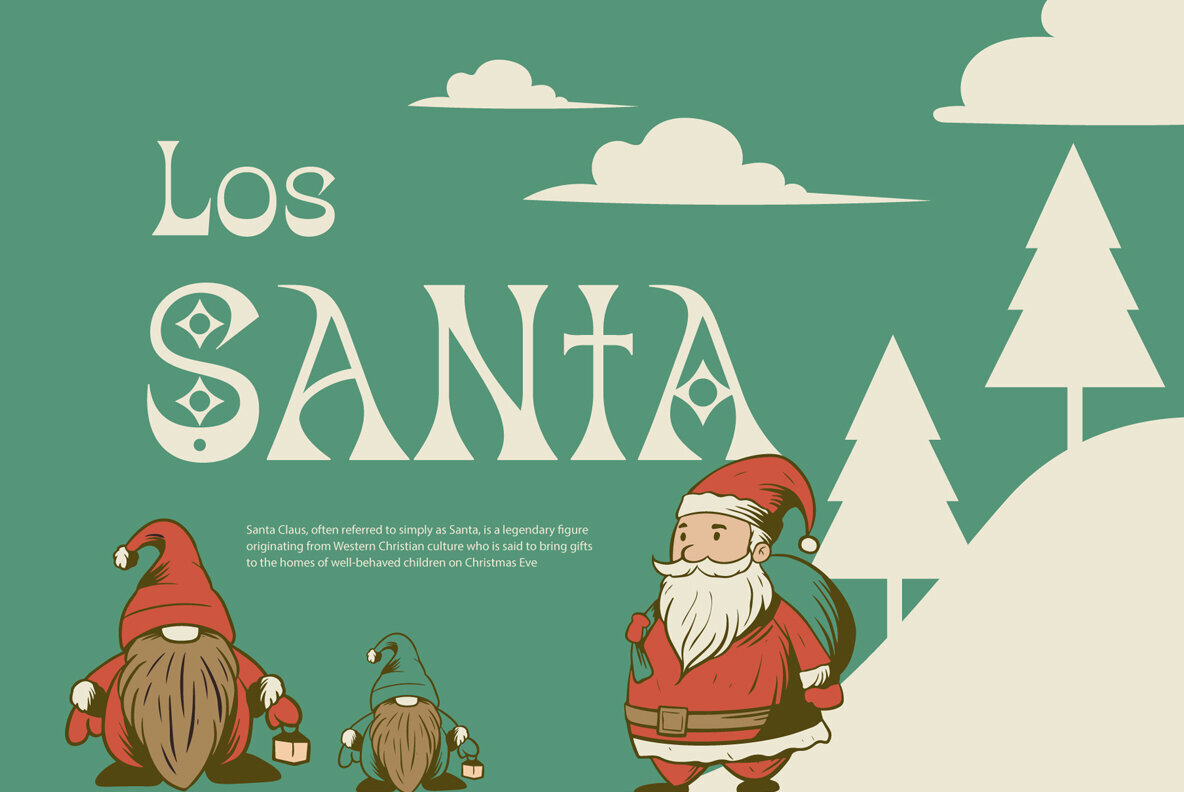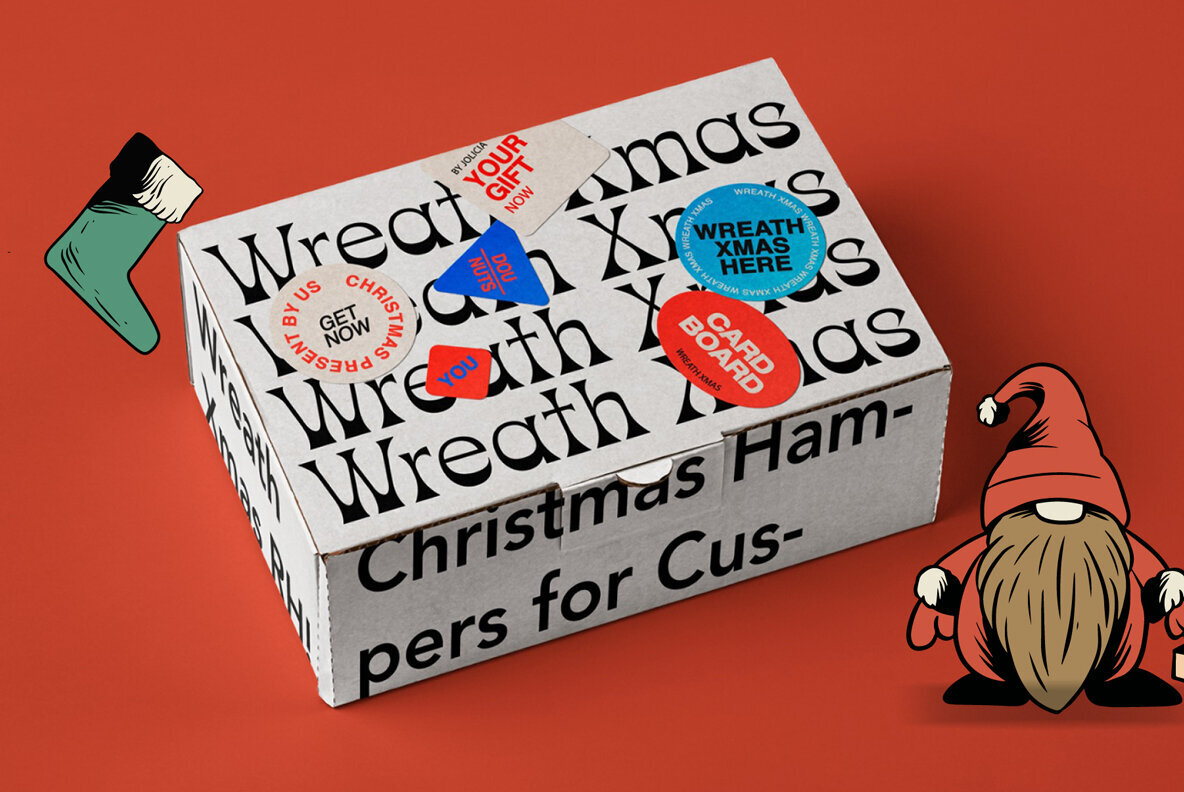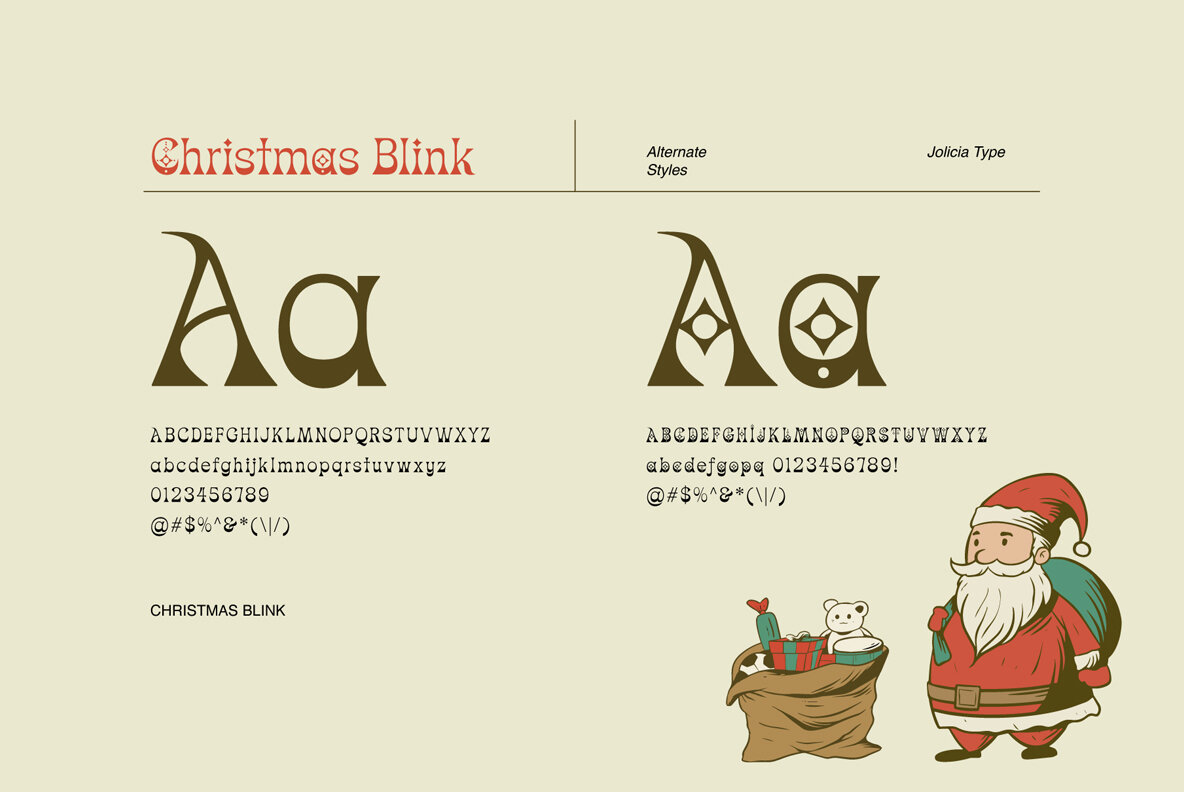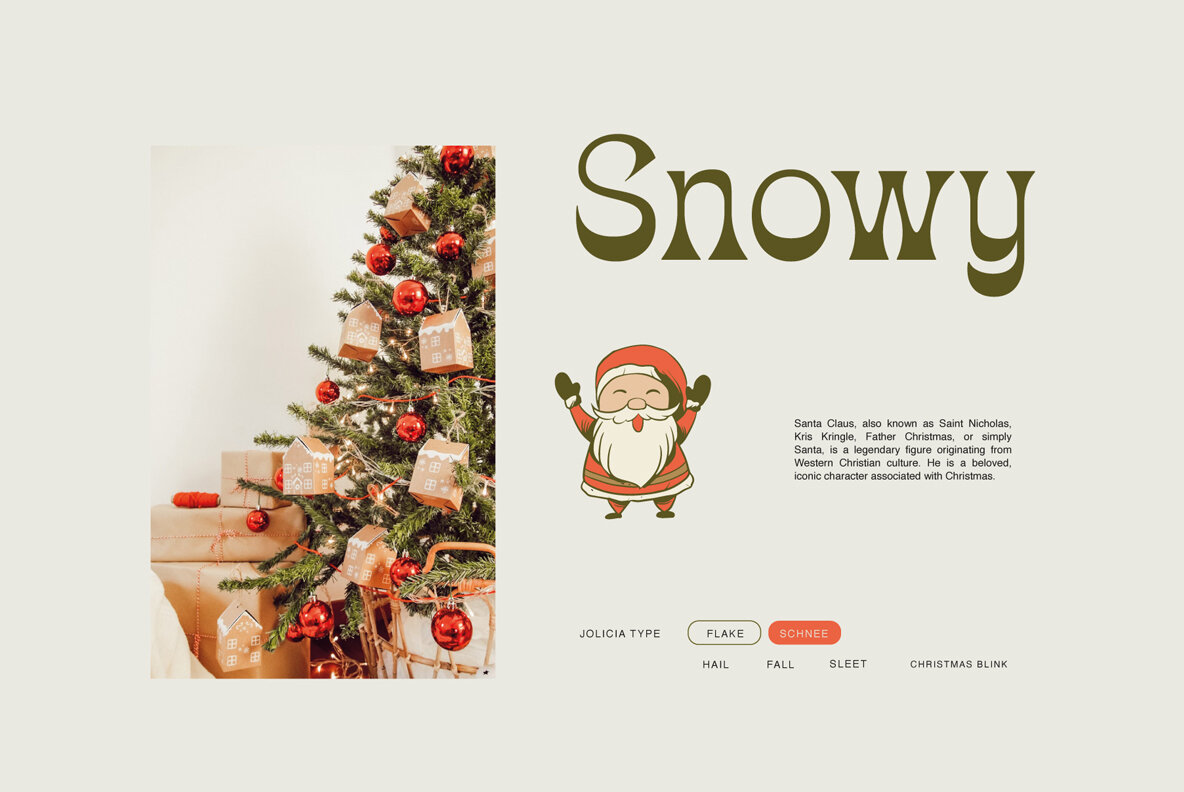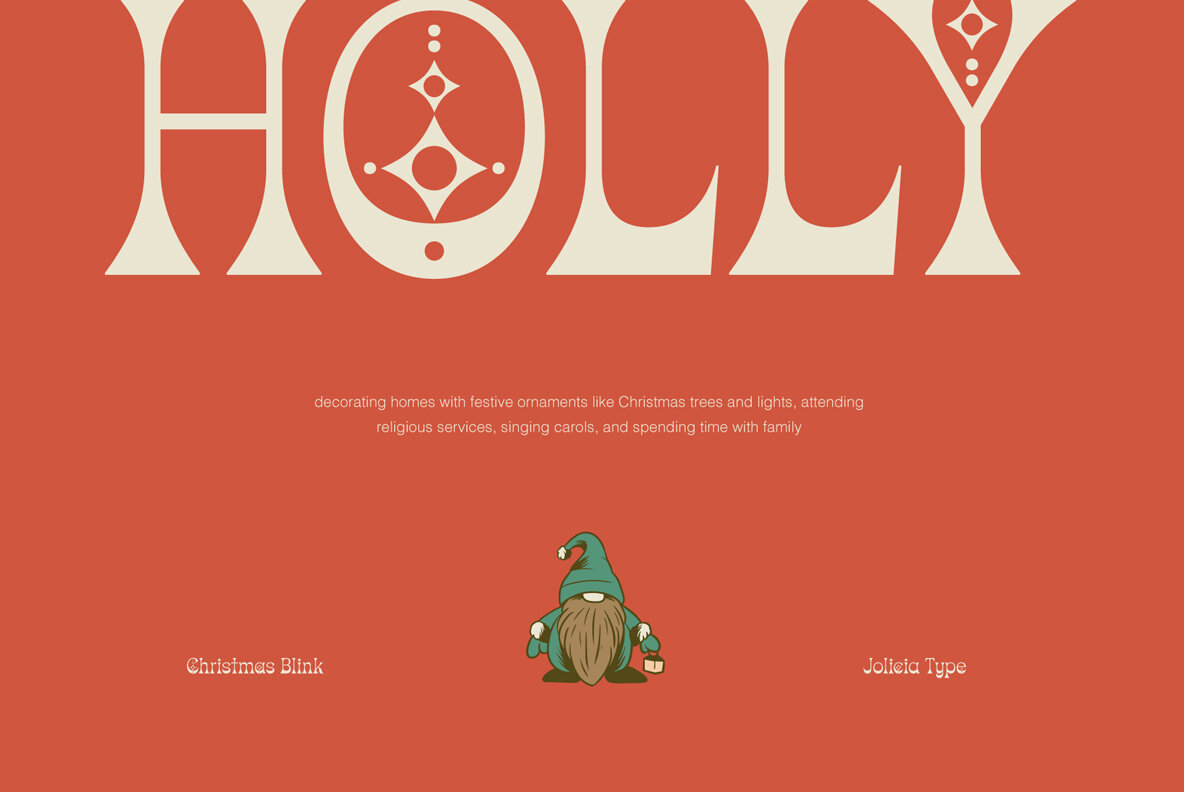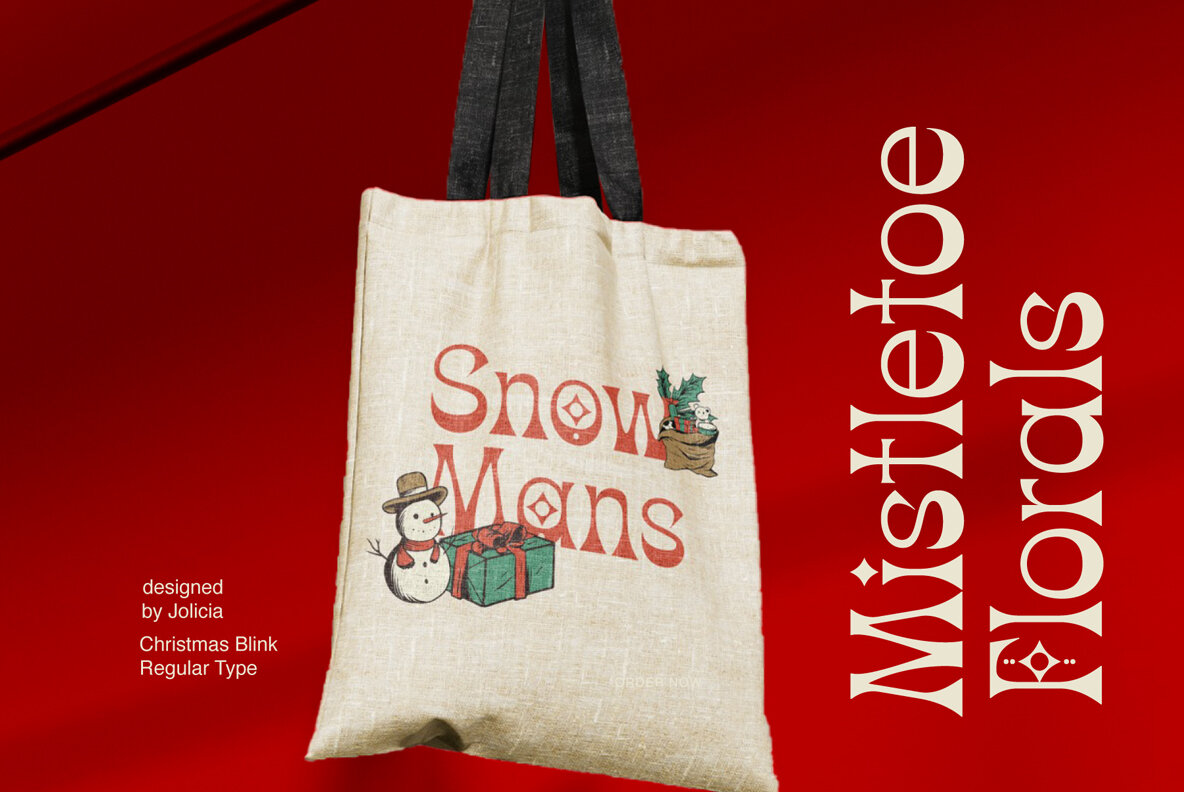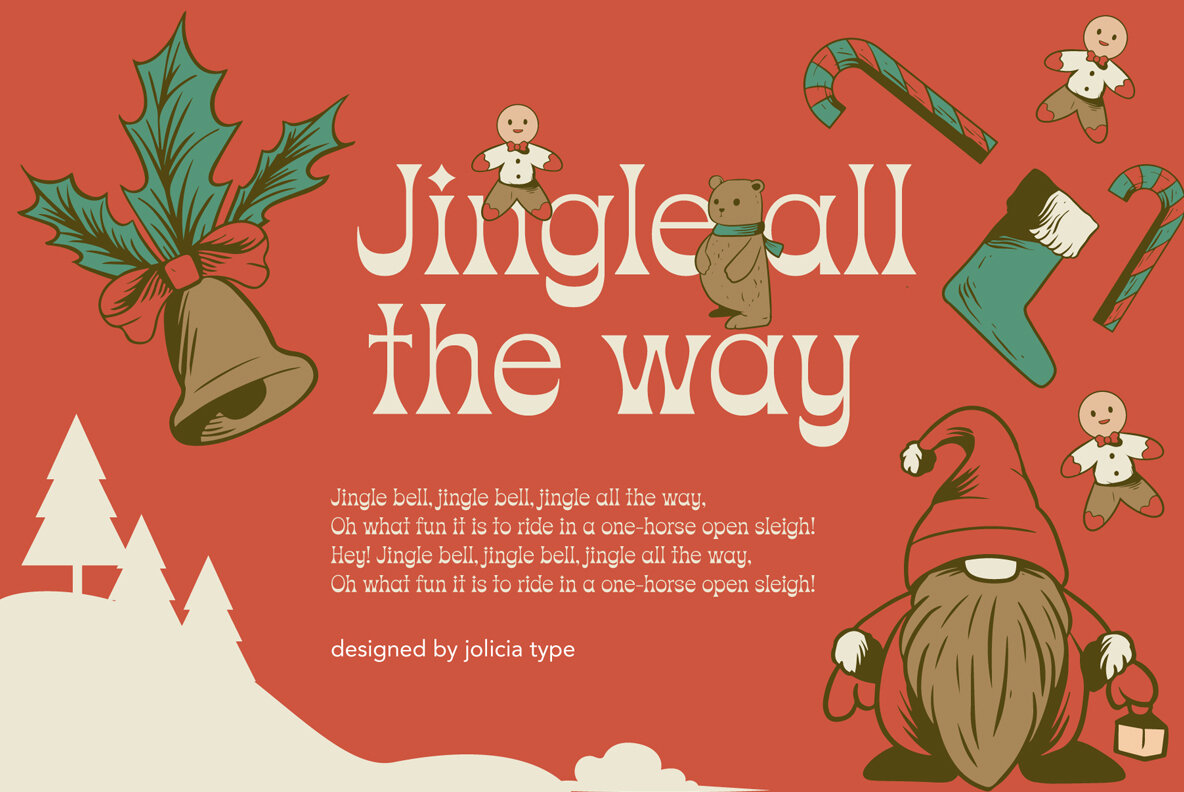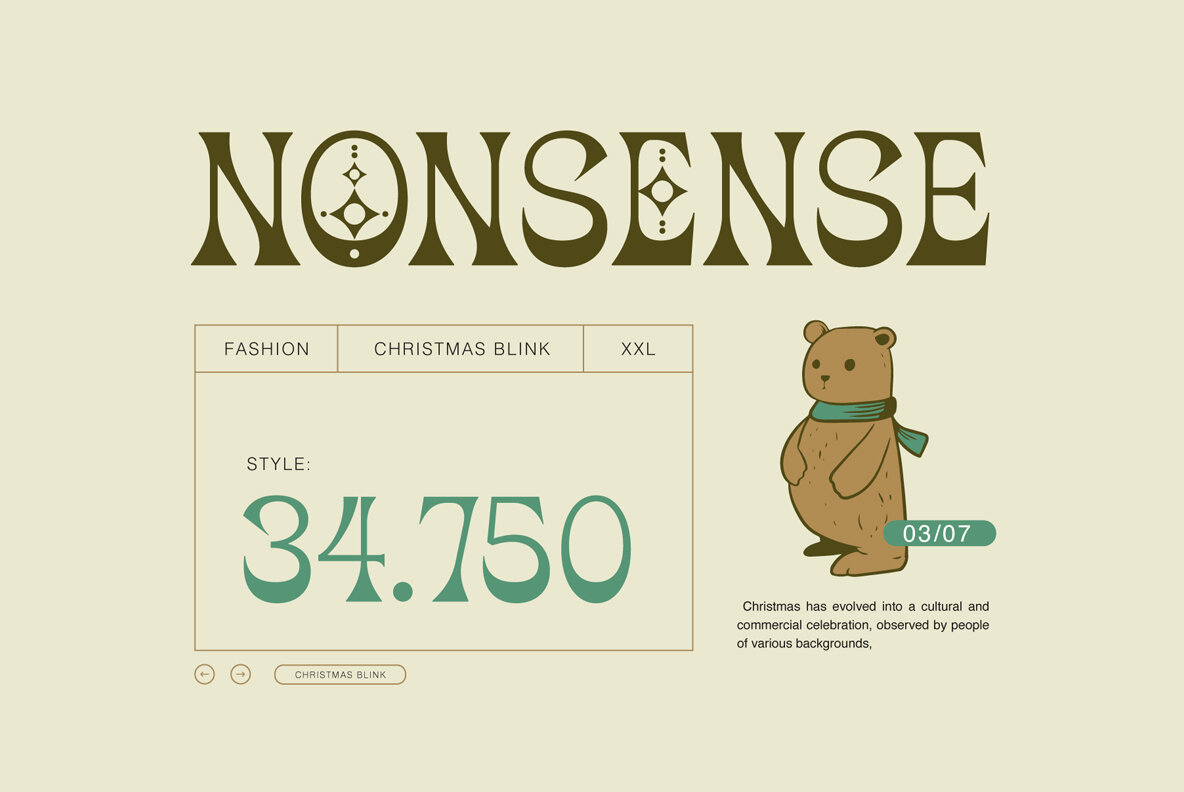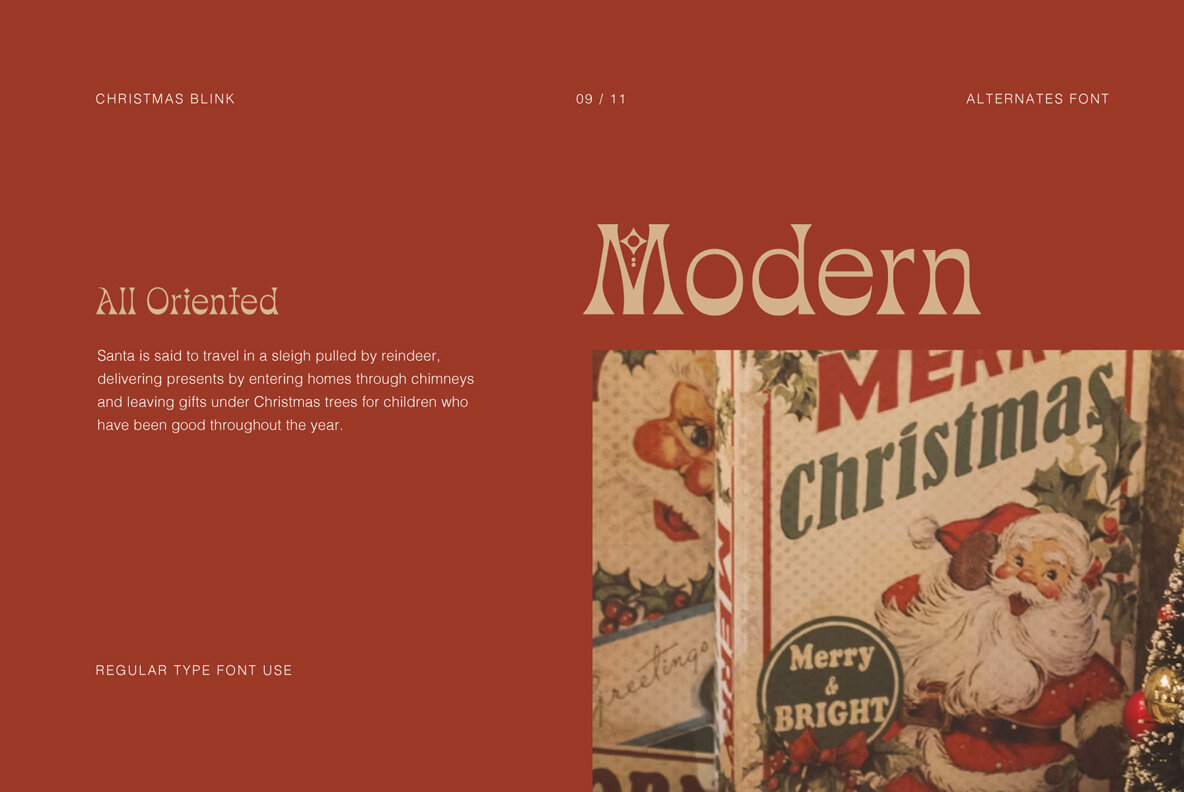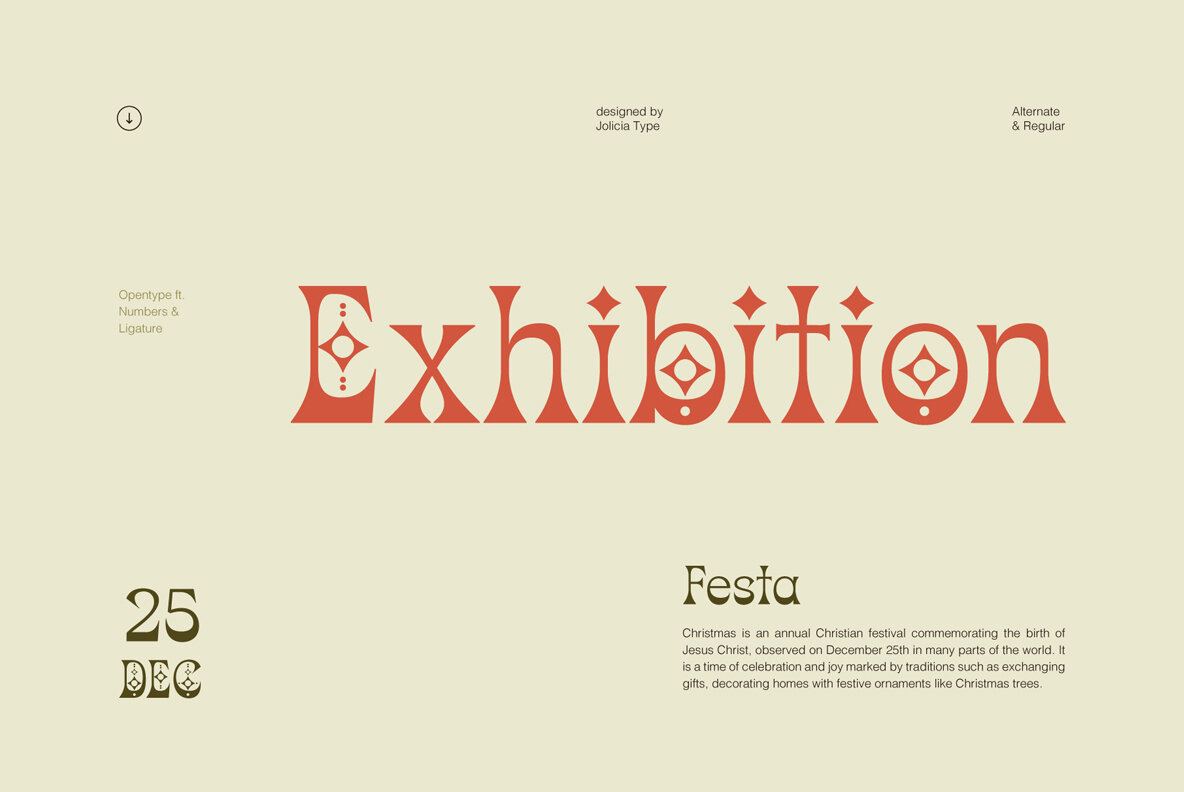
Christmas Blink Font
Christmas Blink
Introducing Christmas Blink, the perfect festive font to add a touch of holiday magic to your designs! This whimsical and joyful typeface is specially crafted to bring the spirit of Christmas to life in your creative projects. "Christmas Blink" is more than just a font, it's a journey into a playful wonderland of letters adorned with festive charm. Each character sparkles with a unique personality, making your text come alive with the joyful spirit of the season. The font's playful elegance ensures that it's perfect for a wide range of Christmas-themed designs. This font comes equipped with charming variations for select characters, allowing you to customize your text and add a personal touch to your designs. Experiment with alternate styles to create truly unique and eye-catching compositions.